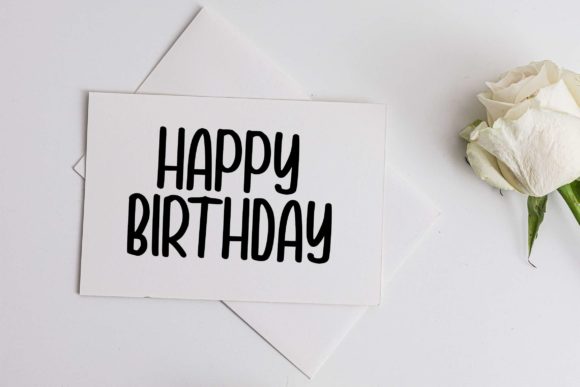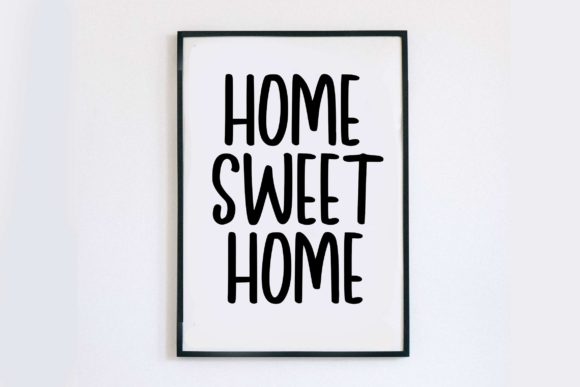
Minimales Font
db-ku.com - Script & Handwritten -- Minimales is a simple handwritten font that is very clean and easy to read. It has a unique character that will turn any design project into a real standout.